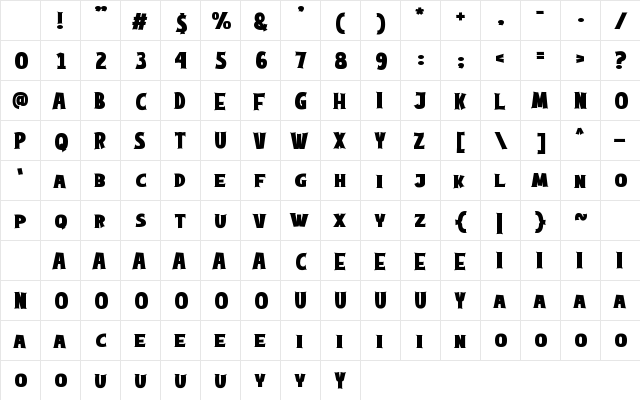
Sharp Axe is a composed and adaptable typeface that performs quietly and consistently across a wide range of design contexts.
Pro Tip: Use Sharp Axe in both headline and body roles to test its range before committing to a single application.